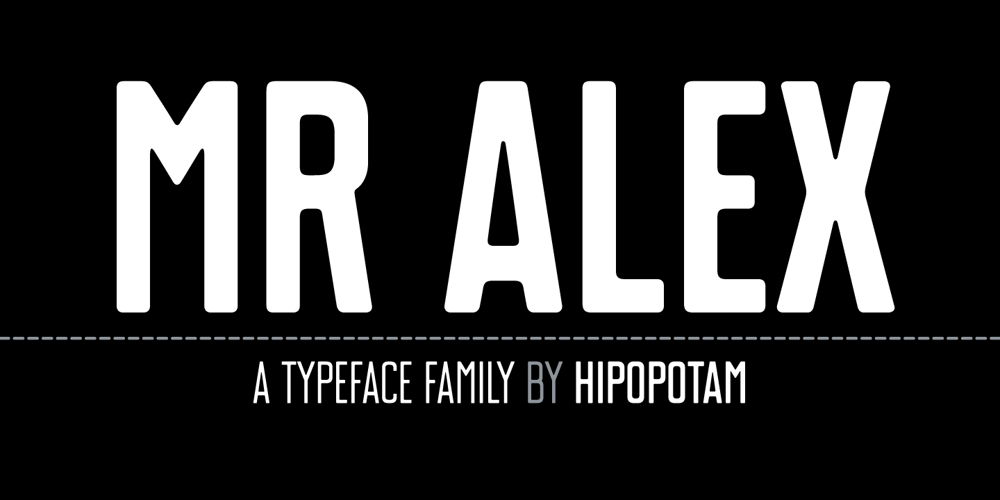
Mr Alex Font Family was designed by Aleksandra and Daniel Mizielińscy and published by Hipopotam Studio. Mr Alex contains 3 styles and family package options. Clean and elegant display sans-serif uppercase family with three weights and rounded corners. Excellent for headers, posters, t-shirts and websites.